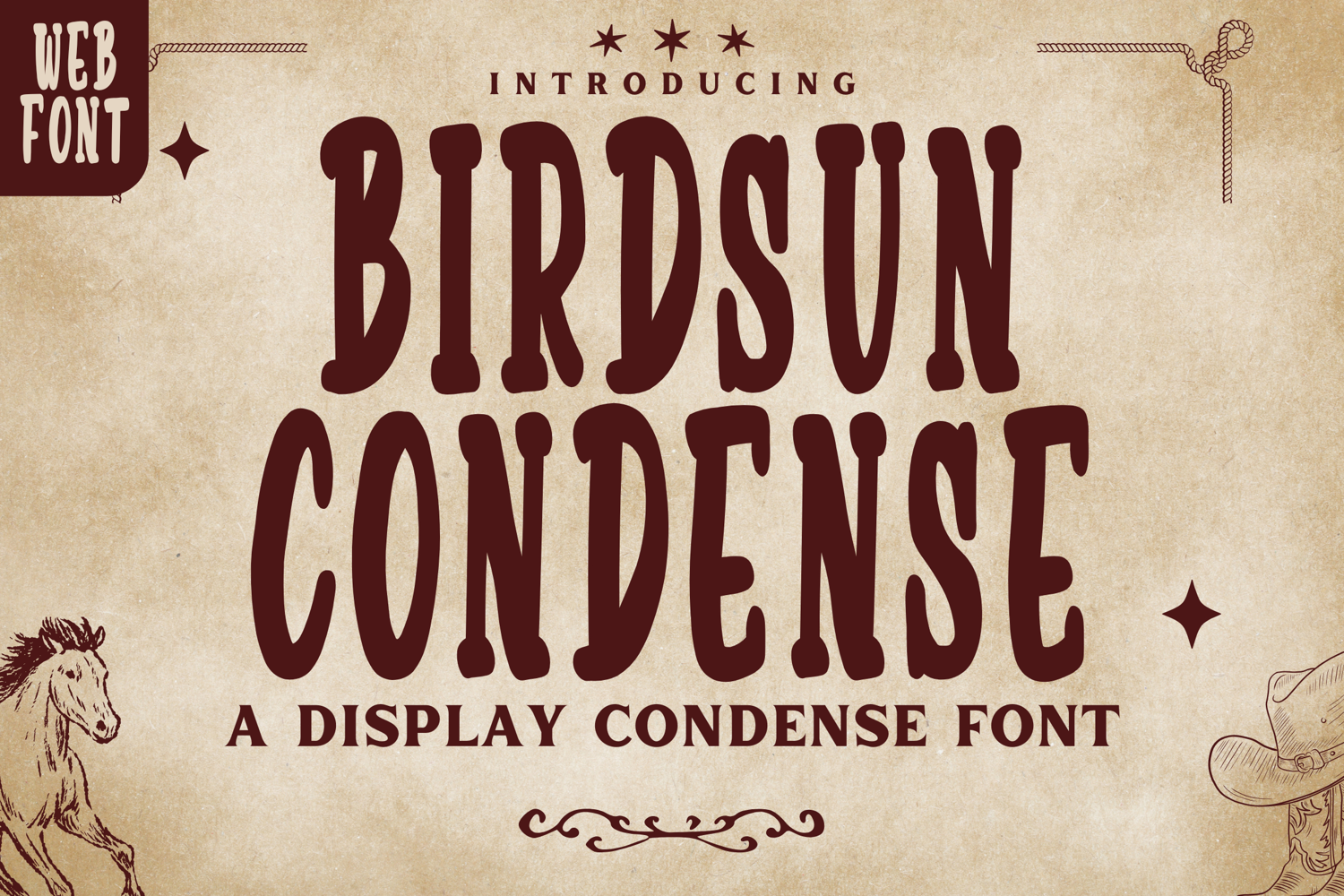
Birdsun Condense - Elegant Condensed Display Font
Birdsun Condense is a modern and elegant condensed Display font with a clean, sleek personality. Perfectly crafted for minimalist design lovers, this font delivers high-impact style in a slim silhouette ideal for headlines, branding, editorial layouts, and professional logos.
With its balanced geometry and subtle character, Birdsun Condense adds a sophisticated, contemporary edge to any design while maximizing space with its narrow width.
✨ Perfect For:
• Editorial titles & magazine layouts
• Fashion branding & logo design
• Posters & modern packaging
• Social media quotes
• Web headers & user interfaces